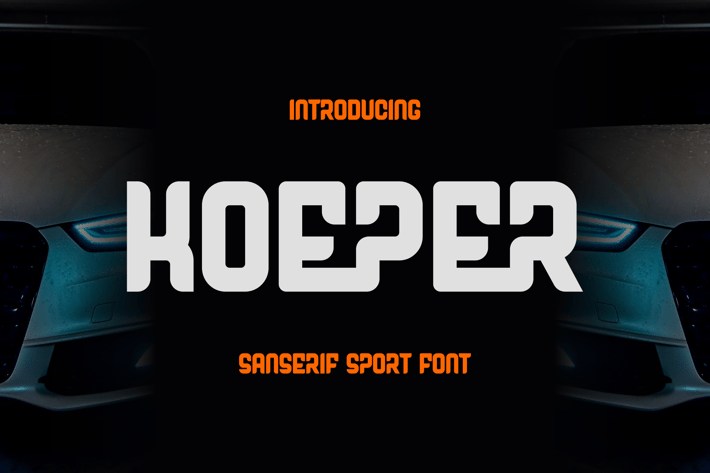
Koeper Font
Introducing our new product Koeper Font - Modern Font
Koeper Font - Modern Font is a bold and authentic display font. The font is suitable for any branding project like logo, esport, and many more. outstanding in a wide range of contexts.